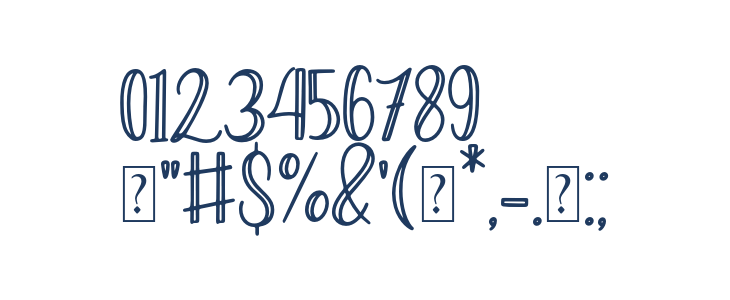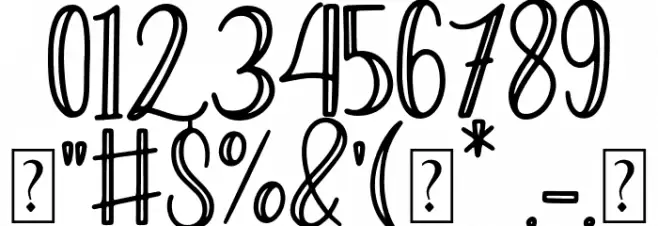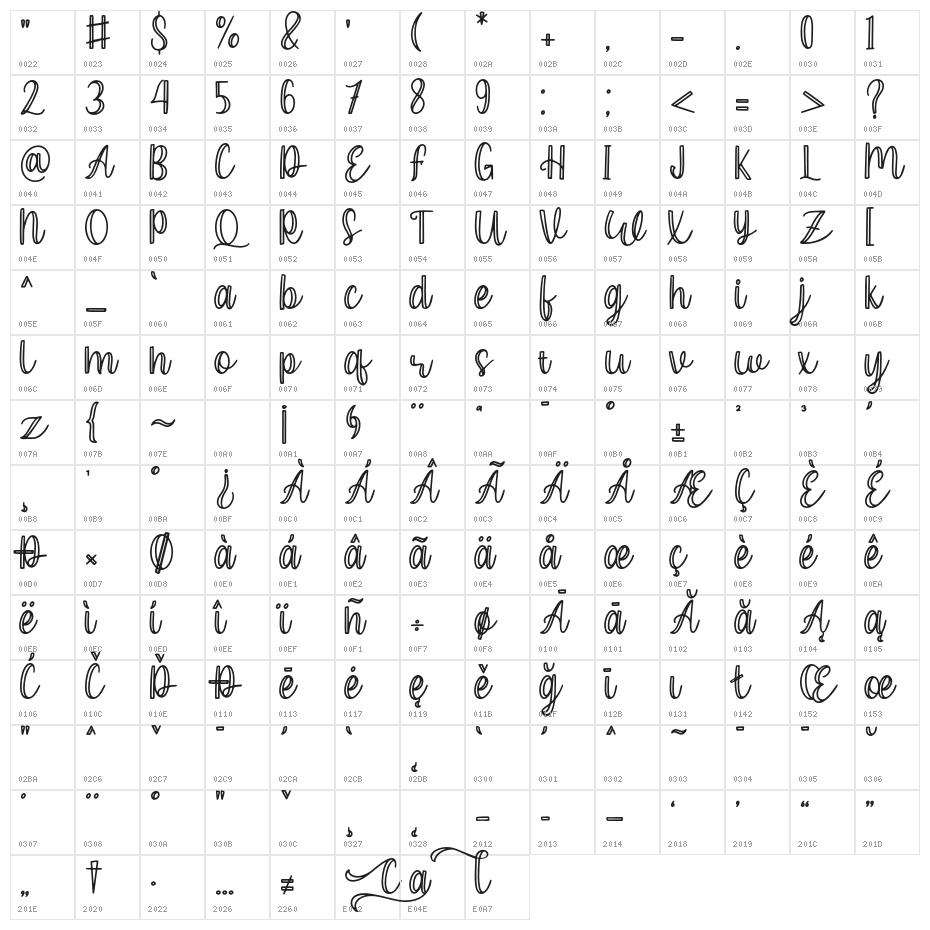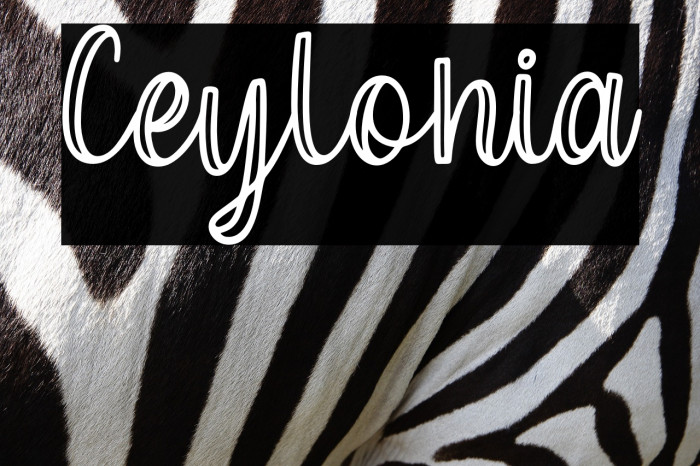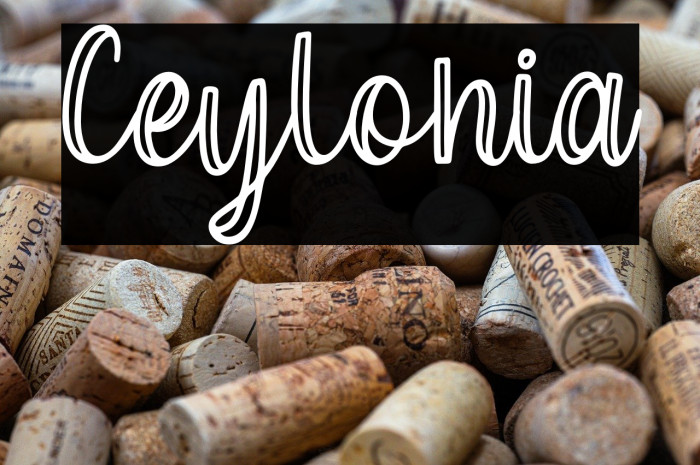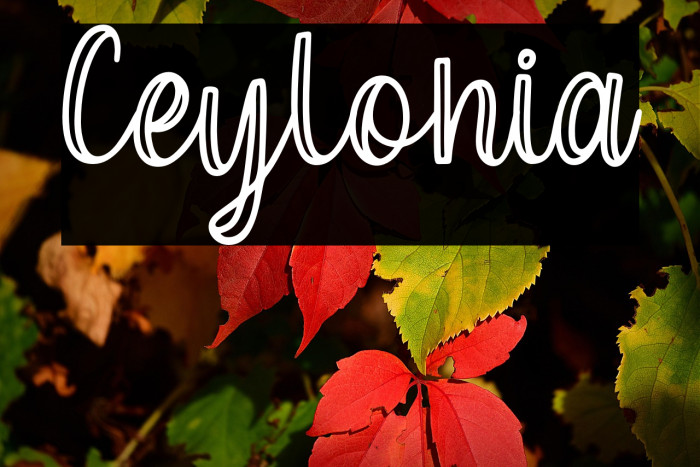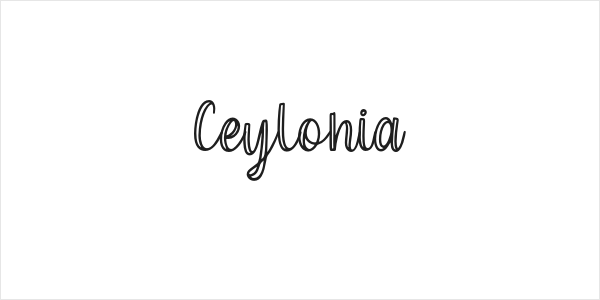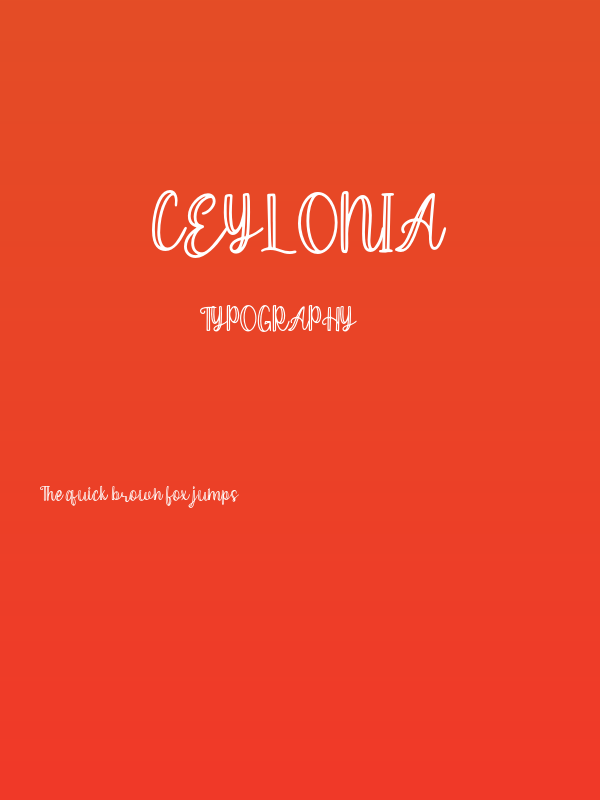
Ceylonia Font
Ceylonia Description
This font features a playful and flowing script style, characterized by its smooth, continuous strokes and elegant curves. The uppercase letters are bold and slightly elongated, giving them a distinctive presence, while the lowercase letters maintain a consistent flow with rounded edges and a slight slant. The numerals are tall and maintain the same playful aesthetic, ensuring readability. Special characters are creatively designed to match the overall style, adding a whimsical touch. This font's unique charm makes it suitable for projects that require a personal and friendly touch.
A playful and flowing script font with elegant curves and smooth strokes from Regular fonts.
- Font: Ceylonia
- Proposed Projects: Ideal for greeting cards, invitations, personal branding, and creative projects that require a friendly and approachable feel.
- Use Case: Logos, Invitations, Greeting Cards